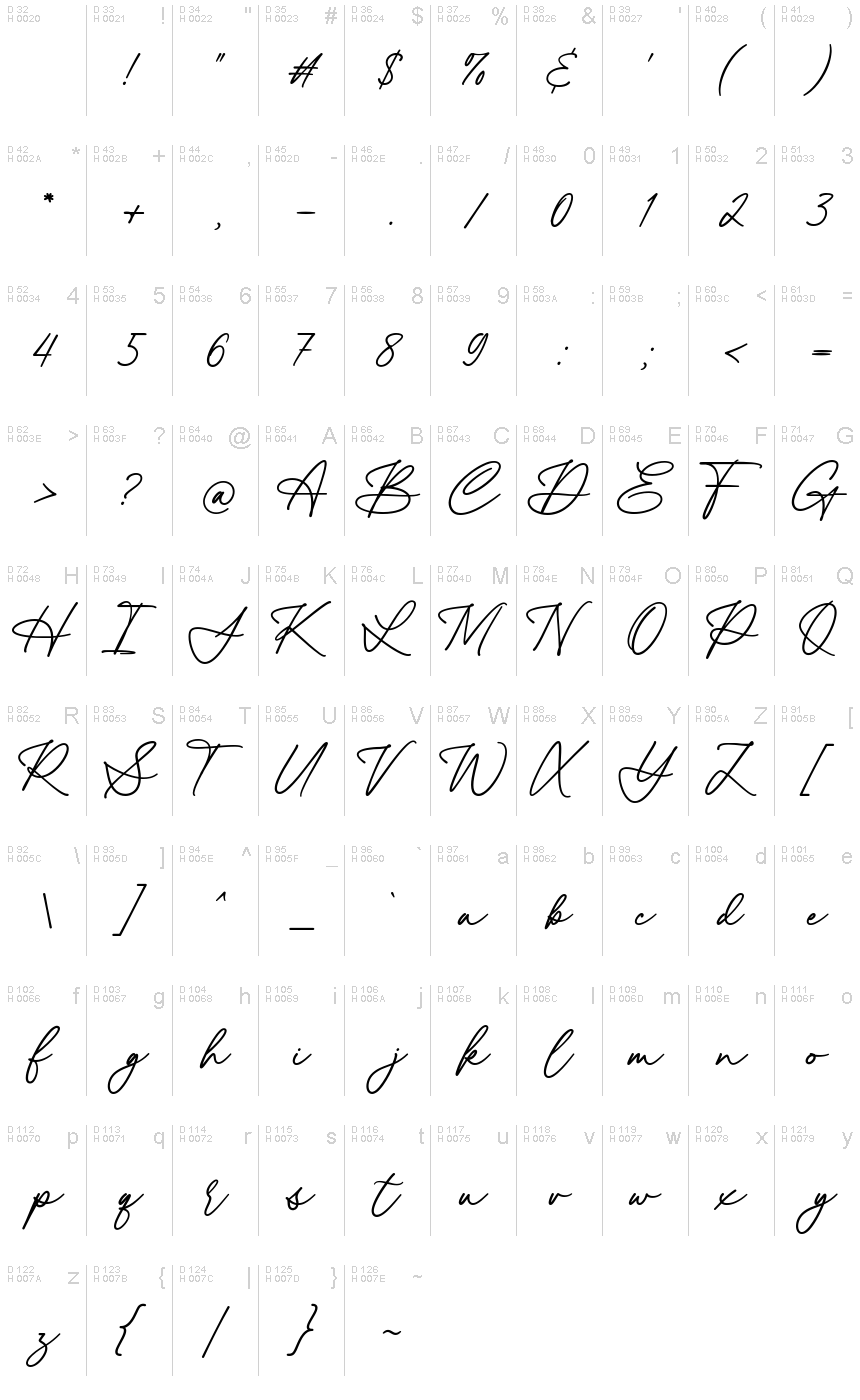
Bughats
Bughats font by Lemonthe embodies elegance and sophistication with its signature handwritten style. This light font captures the fluidity of personal handwriting, making it perfect for projects that require a touch of authenticity and charm. Its aesthetic appeal lies in the graceful, flowing lines that exude a sense of individuality and creativity.
Ideal for branding, invitations, and personal blog designs, Bughats enhances your project's visual impact with its unique character. The font's distinct style is suitable for those seeking to create memorable designs that stand out.